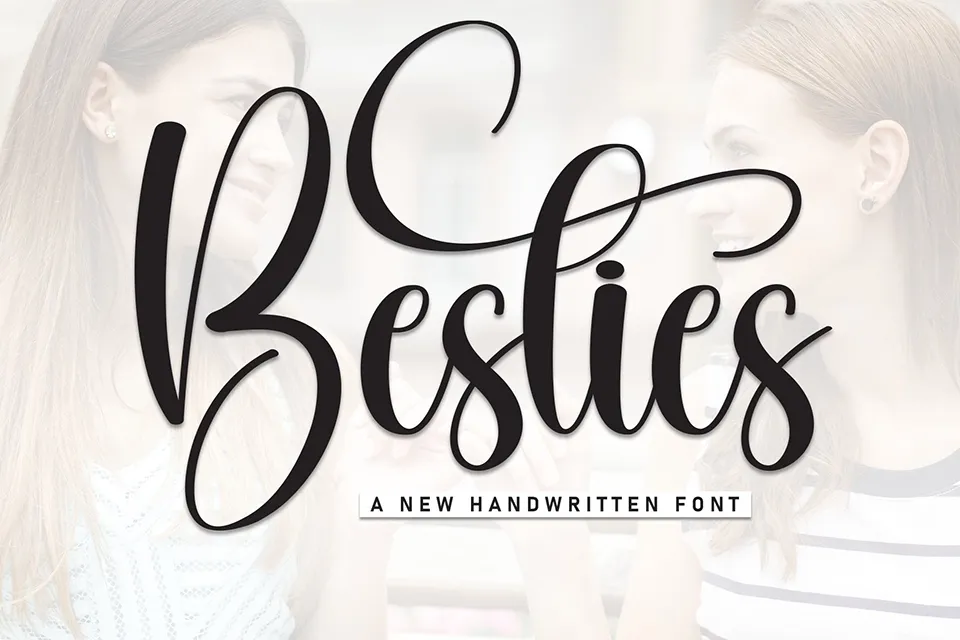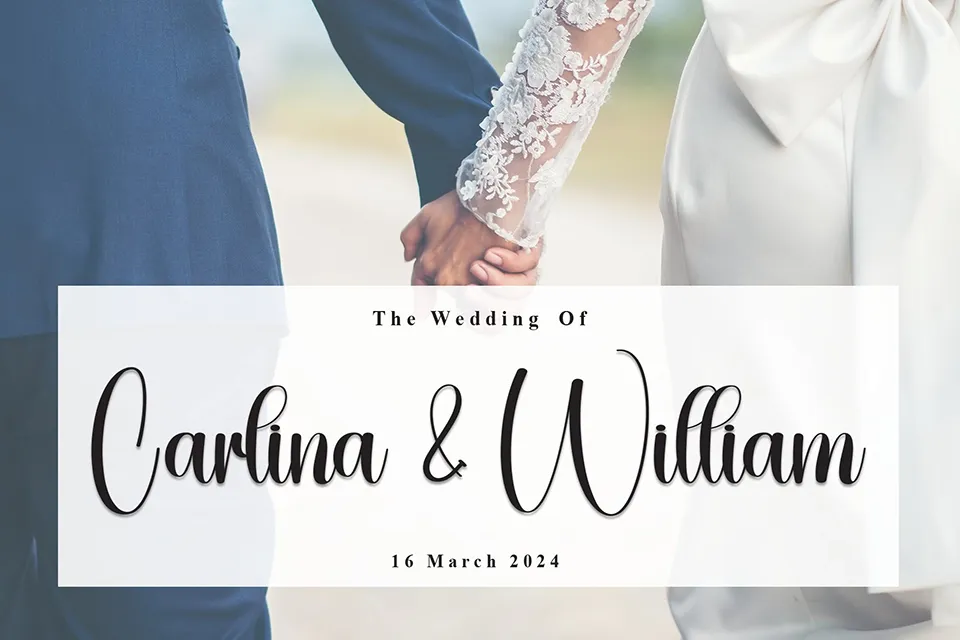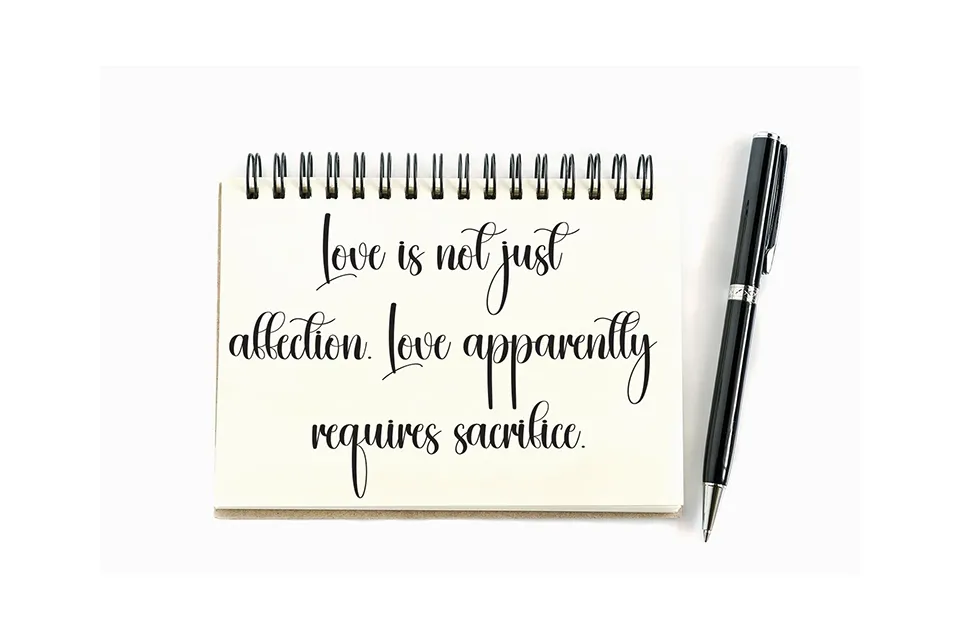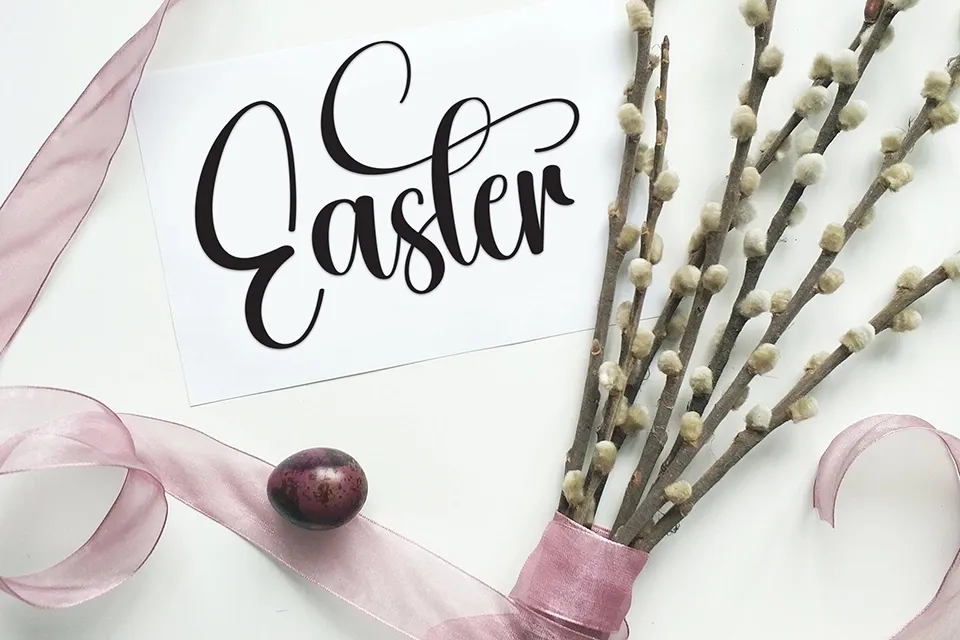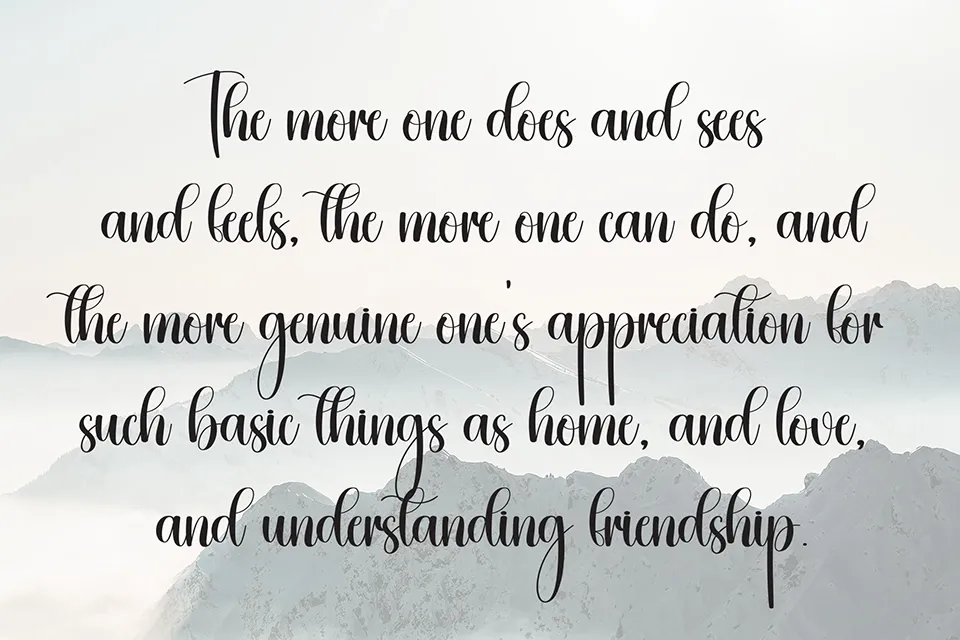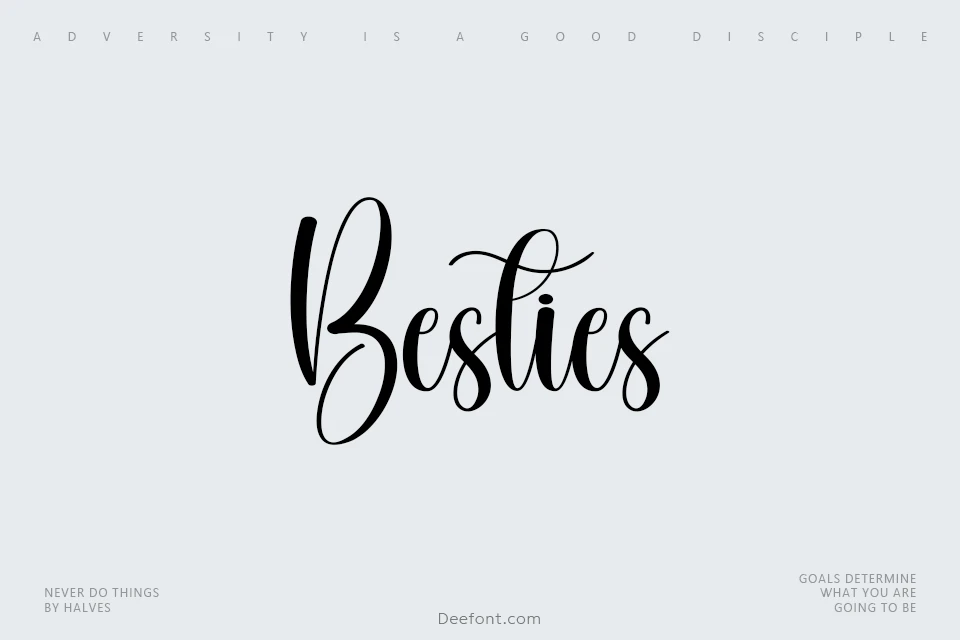
Besties Calligraphy Font
Besties Calligraphy Font is a charming handwritten font exuding elegance and grace. Its fluid strokes and gentle curves mimic the movements of a dancer, making it perfect for adding a touch of sophistication and warmth to invitations, branding, greeting cards, and more24. The font’s whimsical and flowing style brings a luxury spark to any design project, ensuring your creations stand out with character and beauty.